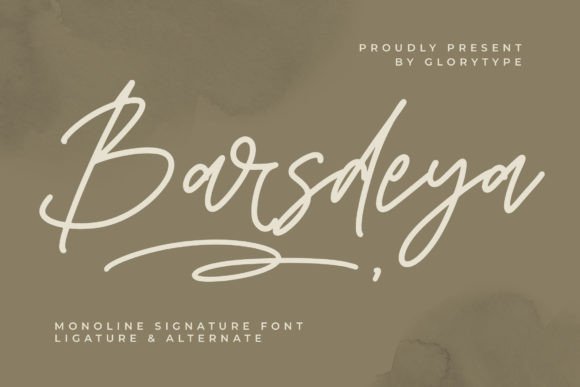
The Perfect Companion for Your Creative Projects
There’s nothing quite like the rush of excitement you feel when a design idea finally comes together. You’ve spent hours brainstorming, sketching, and refining, and suddenly, it all clicks. The colors, the typography, the layout – everything falls into place, and you know you’ve created something special. But what makes the difference between a good design and a great one? Often, it’s the small details that elevate your work to the next level. This is where the Barsdeya Font comes in – a delicate, elegant, and flowing handwritten font that can breathe new life into your most creative ideas.
Whether you’re a graphic designer, a writer, or a creative entrepreneur, the Barsdeya Font is an invaluable addition to your toolkit. With its beautiful and well-balanced characters, it’s the perfect choice for a wide range of designs, from elegant invitations to modern business cards. By incorporating the Barsdeya Font into your projects, you’ll be able to add a touch of sophistication and whimsy that will set your work apart from the rest.
- Unique Characteristics: Barsdeya Font features a unique blend of modern and traditional elements, with intricate details and ornate flourishes, making it ideal for creative projects and designs that require a touch of elegance and sophistication.
Barsdeya Font Review
I recently had the chance to work with the Barsdeya font, and I have to say it’s a unique find. Here’s my honest take on this font.
- ✨ The Barsdeya font has a quirky, hand-drawn feel that can add a touch of personality to any design project.
- ✨ The font is highly customizable, allowing you to adjust the weight, width, and spacing to suit your design needs.
- ✨ The Barsdeya font includes a wide range of languages, making it a great choice for international design projects.
- ⚠️ The font may not be the best choice for large blocks of text, as the hand-drawn feel can become overwhelming.
- ⚠️ The font’s customizability can be a double-edged sword, as it can be easy to overdo it and lose the font’s unique character.
The Barsdeya font is a solid choice for designers looking to add a touch of whimsy to their projects. While it may have some limitations, the font’s unique feel and customizability make it a great addition to any design toolbox. With careful use, the Barsdeya font can add a fun and playful touch to any design project.
Tips for Getting the Most Out of Barsdeya Font
Barsdeya Font is ideal for creating modern and stylish designs. To get the most out of it, use it in combination with other bold and sans-serif fonts to create a visually appealing design.
Use Barsdeya Font for headings and titles to make them stand out, and use it in combination with a serif font for body text to create a clear and readable design.
Barsdeya Font is commonly used for:
1. Modern logo designs
2. Fashion and beauty branding
3. Technology